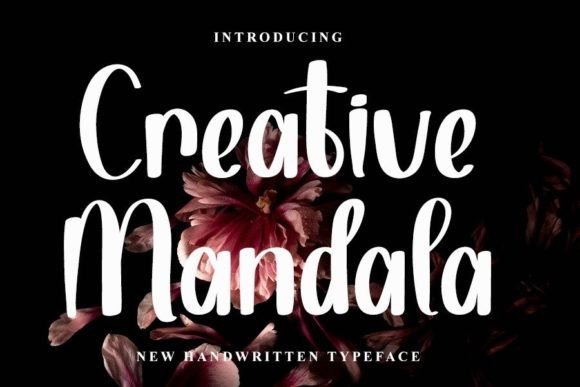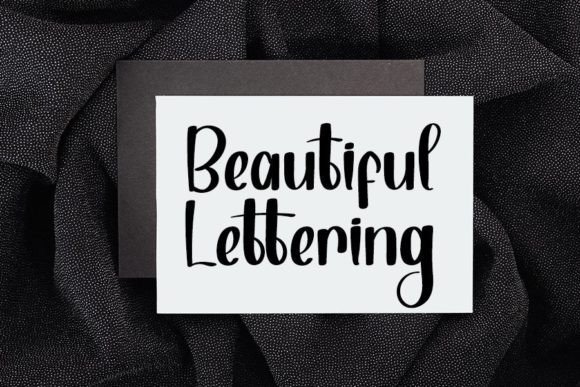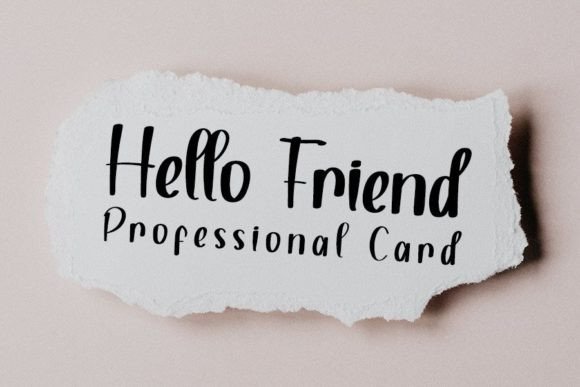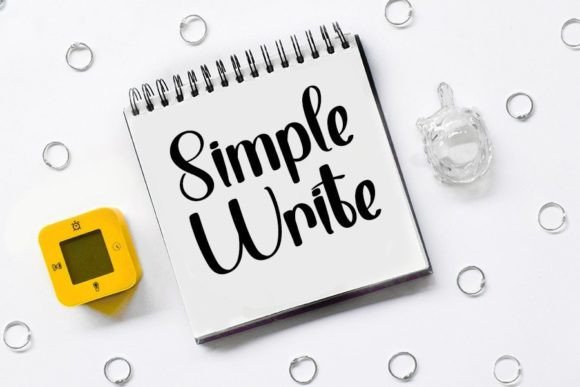
The Art of Creative Expression
Have you ever found yourself lost in the world of color and design, surrounded by an array of shapes and patterns that spark your creativity? For many of us, moments like these are what drive us to create something truly special. Whether it’s a new project, a piece of art, or simply a way to express ourselves, the desire to bring our visions to life is a universal language.
One tool that can help you unlock your full creative potential is the Creative Mandala Font. This beautiful, handwritten font is the perfect addition to any project, adding an elegant touch that’s sure to captivate your audience. With its unique and timeless style, the Creative Mandala Font is a valuable asset for designers looking to elevate their work and make a lasting impression.
Creative Mandala Font Key Features
- Unique Characteristics: The Creative Mandala Font features intricate, hand-drawn designs with a mix of Eastern and Western influences, adding a touch of cultural fusion to any design project.
- Glyphs and Characters: The font includes a wide range of glyphs and characters, including Latin, Cyrillic, and Greek alphabets, as well as various symbols and punctuation marks.
Designer Review: Creative Mandala Font
I recently had the chance to work with the Creative Mandala Font, and I must say it’s a unique and interesting addition to any design project. ✨ One of the things that stands out is the intricate, hand-drawn style that adds a touch of elegance and sophistication to any text. The font is perfect for those who want to add a bit of whimsy and personality to their designs.
The font has a wide range of uses, from wedding invitations to marketing materials, and it’s versatile enough to work well in both digital and print applications. ✨ Another advantage is that it’s highly customizable, allowing designers to adjust the font’s size, color, and style to suit their needs.
- ⚠️ The font may not be suitable for all types of projects, particularly those that require a more formal or corporate tone.
- ⚠️ The intricate design can make the font difficult to read at small sizes, so it’s best to use it at larger sizes or with careful spacing.
- ⚠️ Some users may find the font’s unique style to be overwhelming or distracting, so it’s essential to use it sparingly and in moderation.
Overall, the Creative Mandala Font is a great choice for designers who want to add a touch of creativity and personality to their work. While it may have some limitations, its unique style and versatility make it a valuable addition to any design toolkit.
Tips for Getting the Most Out of the Creative Mandala Font
Experiment with different font sizes, colors, and arrangements to create visually striking designs.
Use the font in combination with other design elements, such as patterns and shapes, to add depth and interest.
The Creative Mandala Font is ideal for:
Designing invitations and greeting cards
Creating social media graphics and posts
Adding a touch of whimsy to presentations and documents